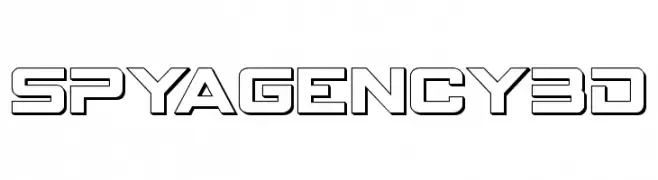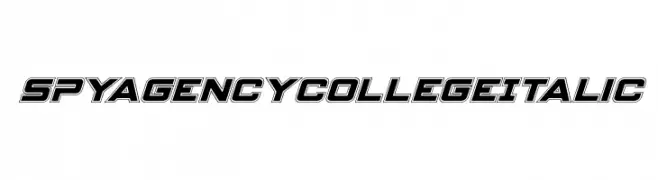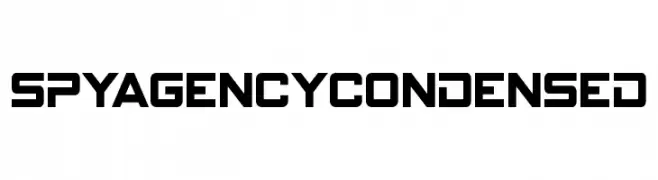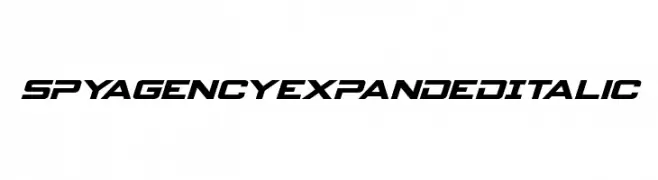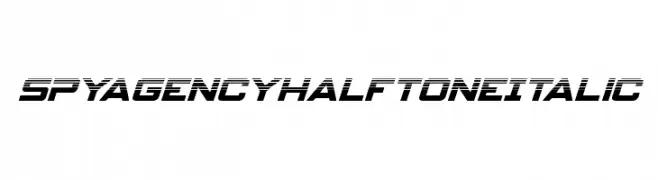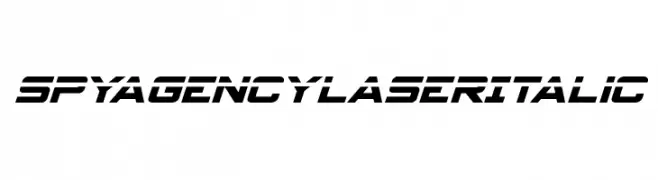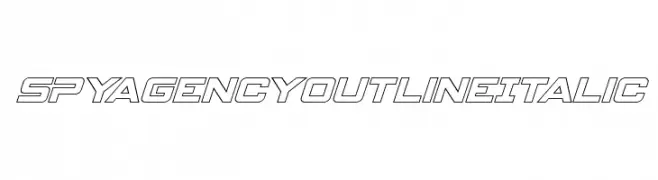
• Spy Agency Bold
A bold, geometric font with a futuristic and digital aesthetic.
• Spy Agency Outline Italic
A bold, italicized outline font with a modern, geometric design.
• Spy Agency Laser Italic
A futuristic, italicized typeface with sharp, angular lines and a dynamic aesthetic.
• Spy Agency Gradient
A futuristic font with a digital, horizontal line pattern and geometric structure.
• Spy Agency Condensed
A bold, geometric font with a modern, futuristic style and condensed width.
• Spy Agency Halftone Italic
A bold, italic font with a halftone effect and a futuristic style.
• Spy Agency Leftalic
A bold, futuristic font with a leftward slant and geometric design.
• Spy Agency 3D
A bold, 3D outlined font with a futuristic and geometric style.
• Spy Agency Expanded Italic
A bold, expanded italic font with a modern and dynamic style.
• Spy Agency College Italic
Bold, italicized font with a dynamic, outlined style.